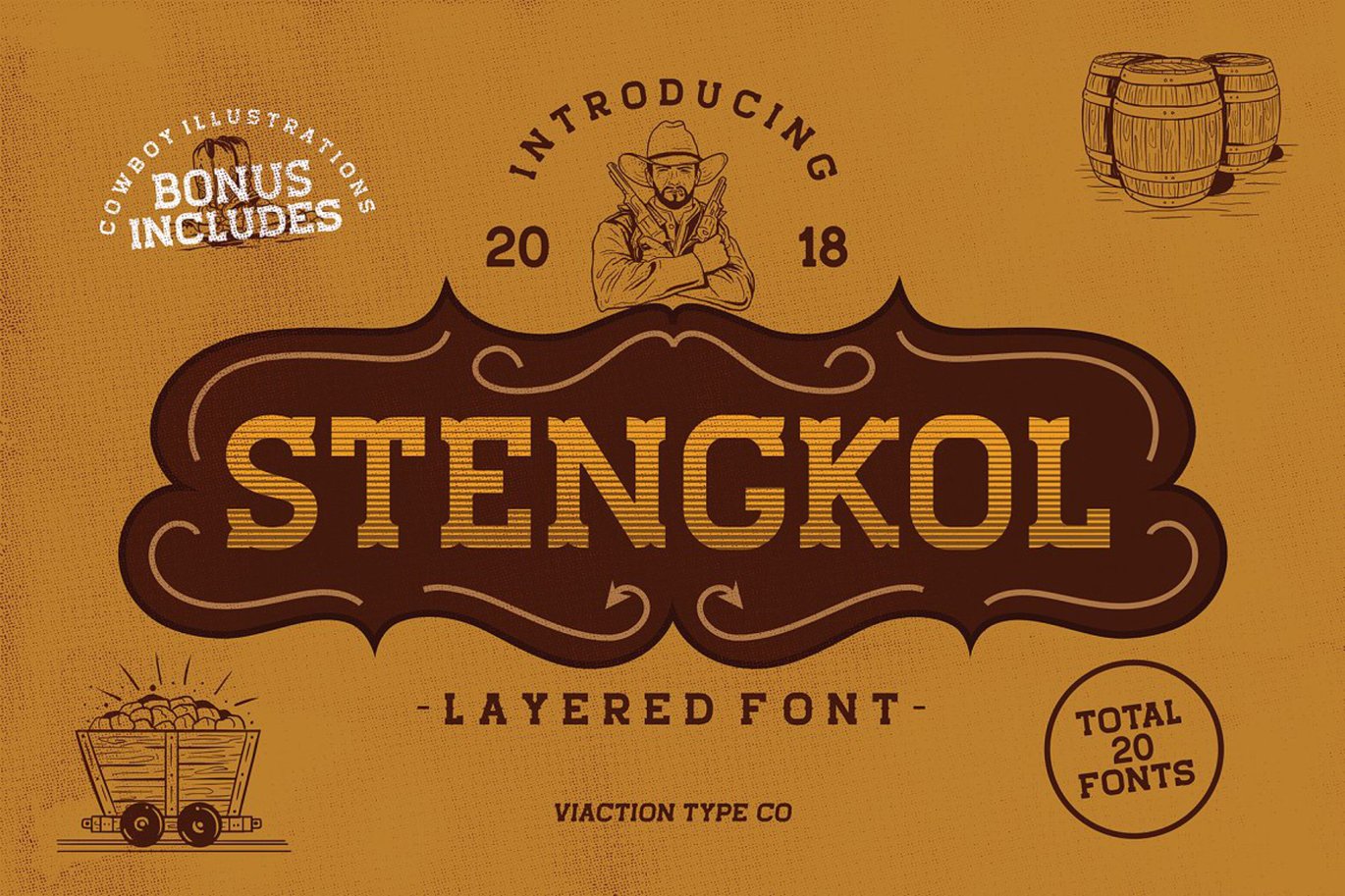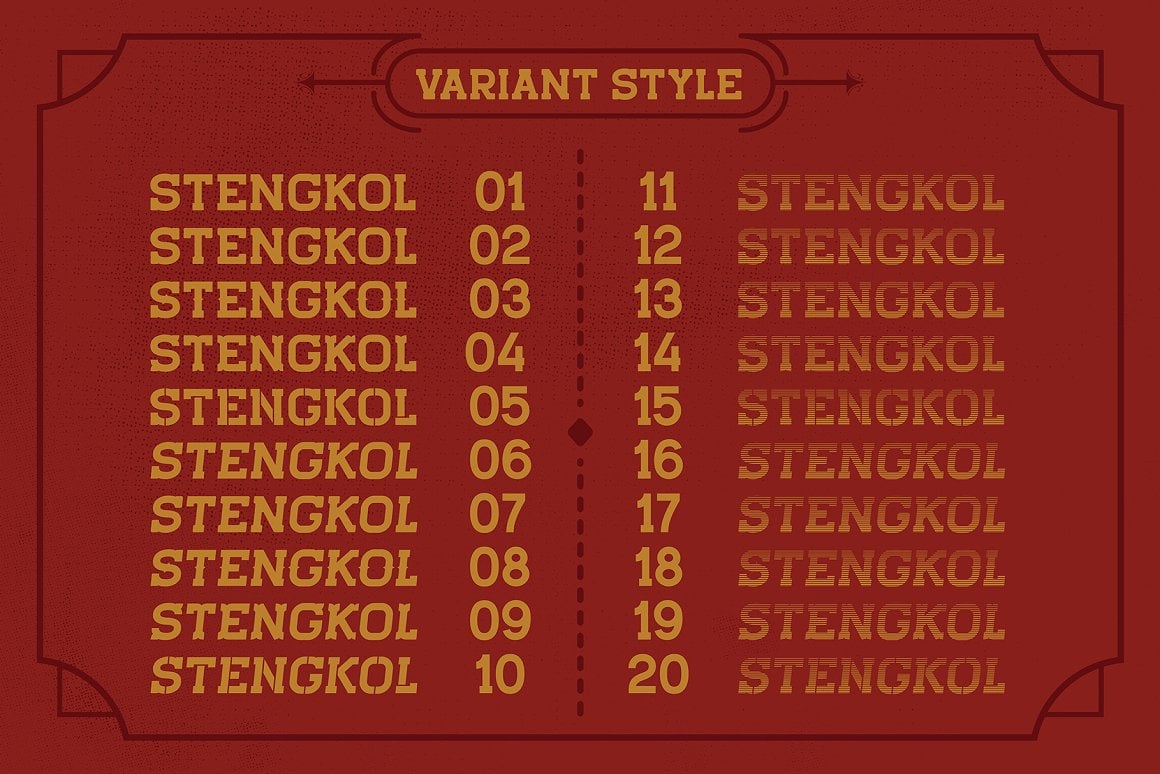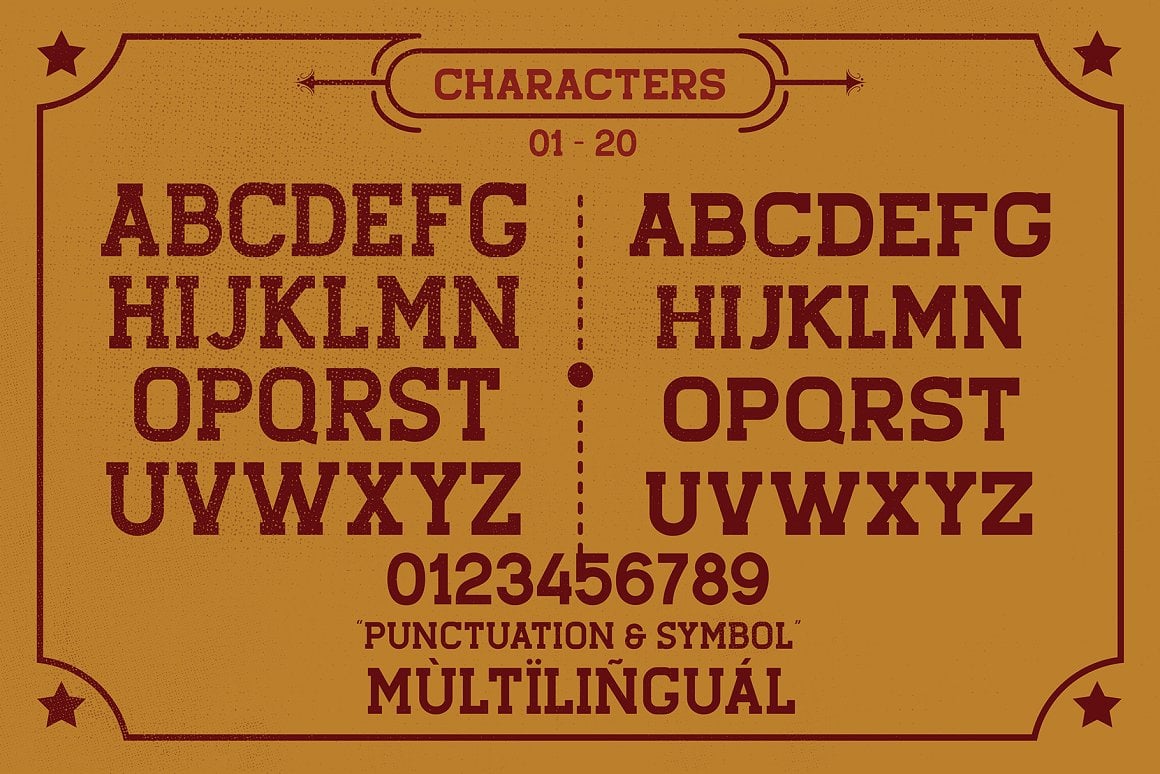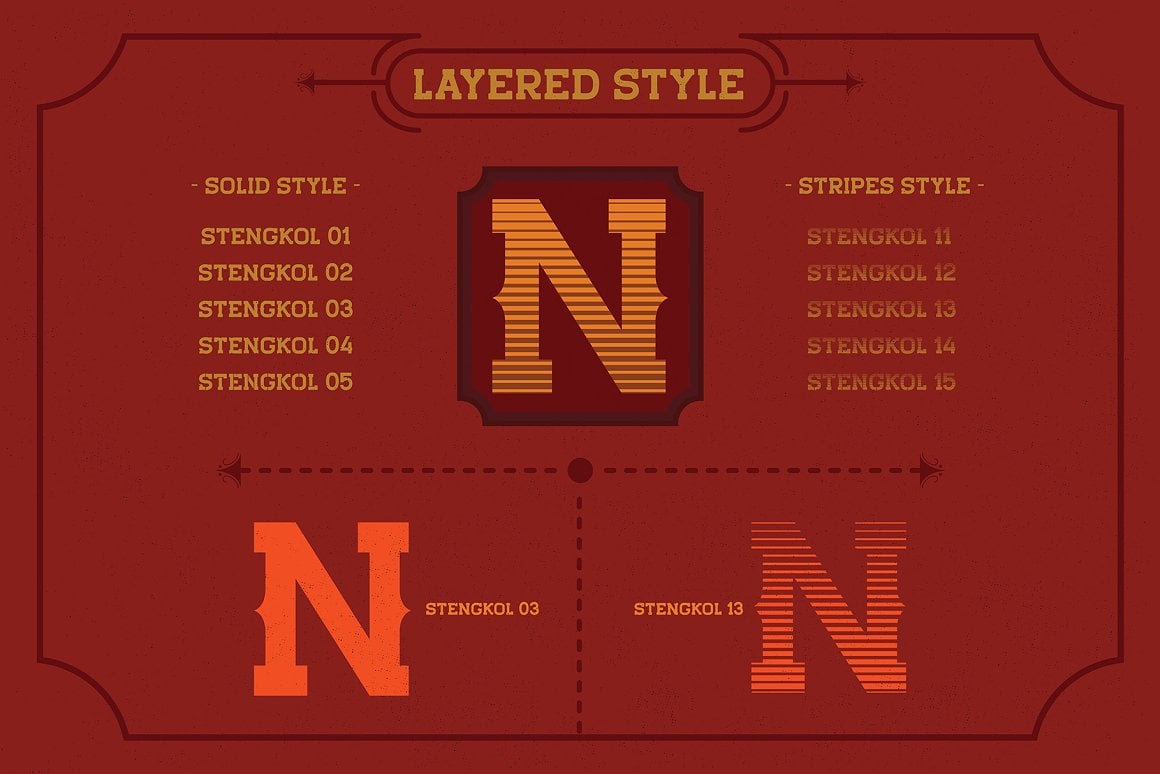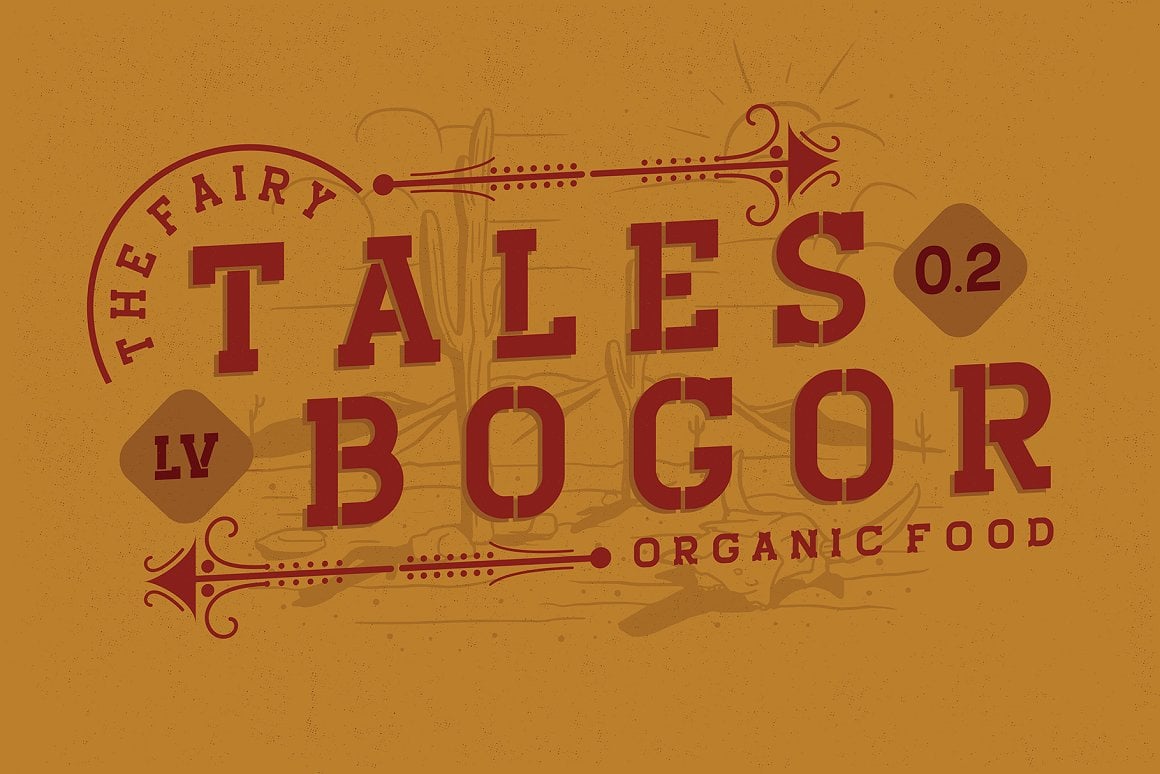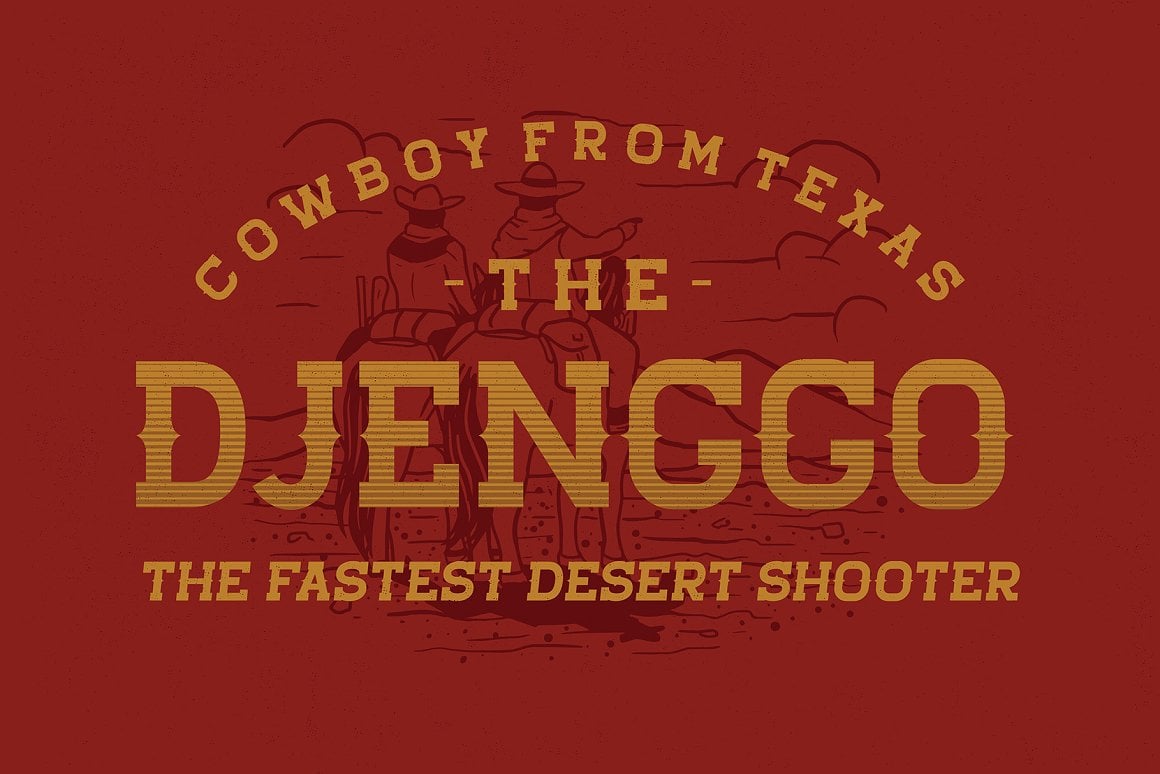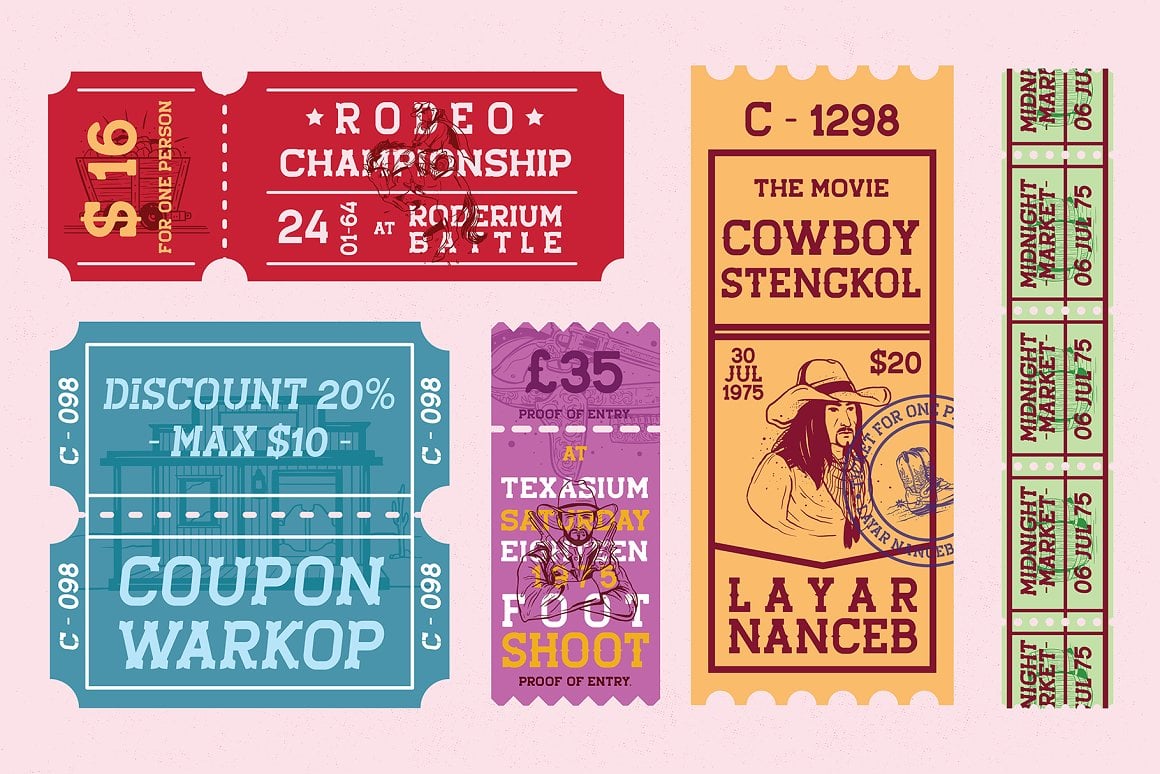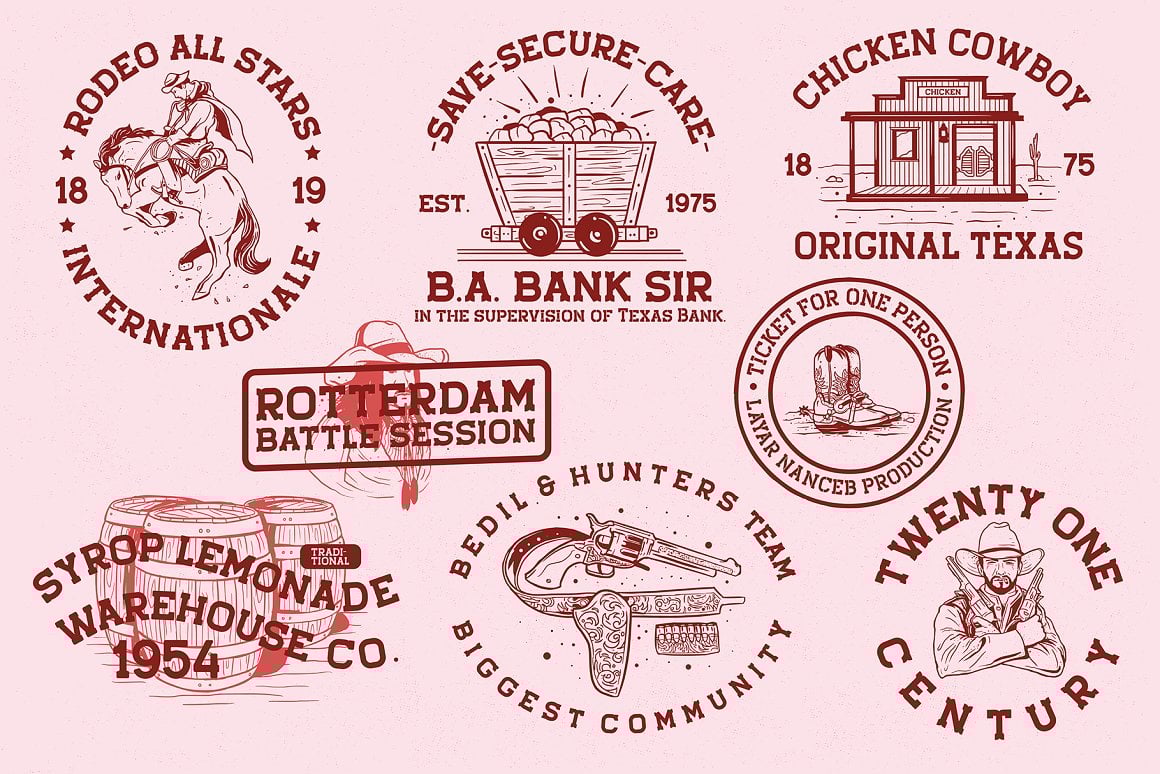
Stengkol Western Cowboy Font
Introducing Stengkol Font: Embrace the Wild West Vibe!
Saddle up for a font adventure like no other with Stengkol Serif, a collection inspired by the rugged charm of the Old West. With 20 unique fonts in its arsenal, Stengkol brings the essence of cowboy culture to life in every character.
Each serif in the Stengkol family exudes the rustic allure of the frontier, perfect for adding a touch of vintage flair to your projects. From bold headlines to intricate body text, these fonts capture the essence of the Wild West with every stroke.
Whether you’re crafting posters for a rodeo event or designing branding materials for a Western-themed bar, Stengkol is your trusty sidekick. Its versatility knows no bounds, offering endless possibilities for designers and typographers alike.
With Stengkol, you’ll ride into the sunset of creativity, leaving a trail of awe-inspiring designs in your wake. So, hitch your wagon to the Stengkol Serif collection today and let your imagination roam free across the untamed plains of design.
Yeehaw your way to success with Stengkol Font, the ultimate companion for all your Western-inspired projects!Stengkol Font Family comes with:
- Uppercase.
- Lowercase.
- Numerals.
- Punctuation.
- Multilingual.